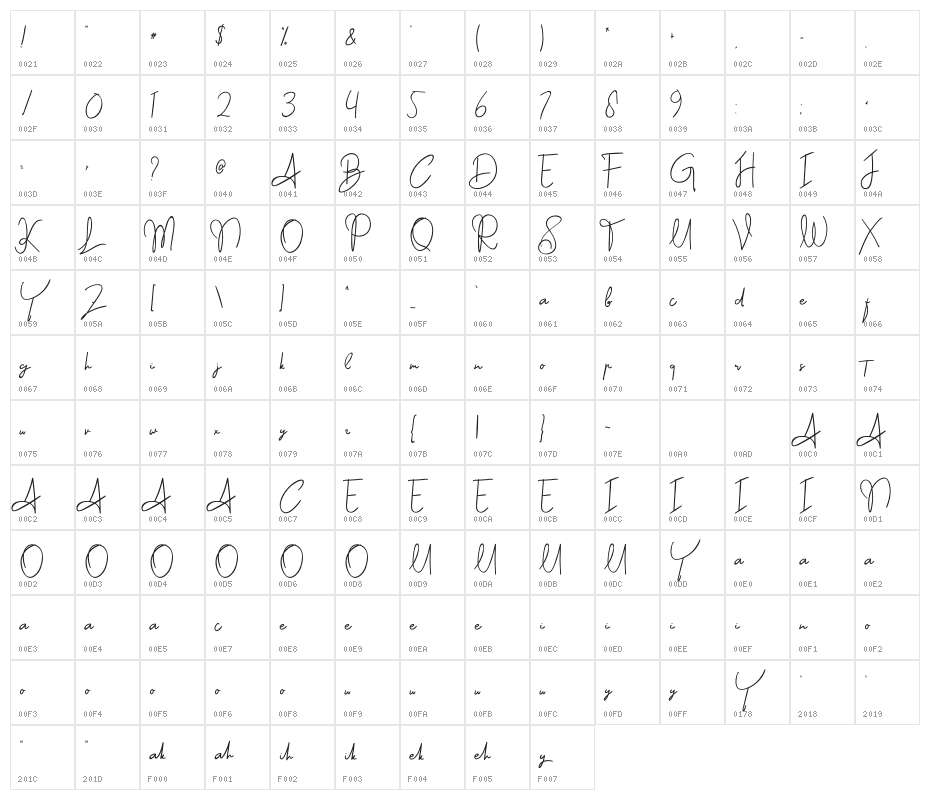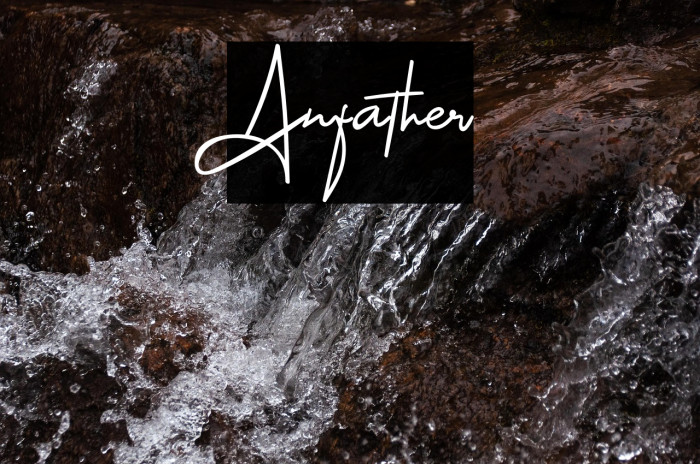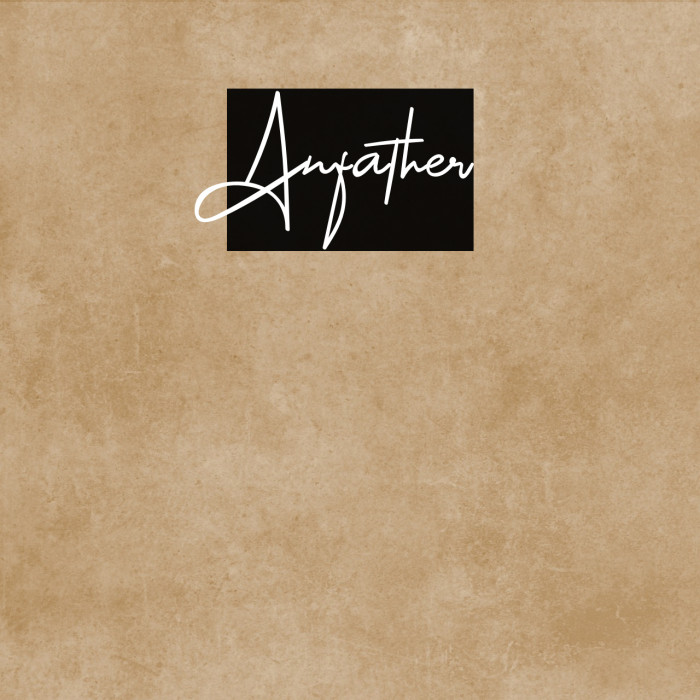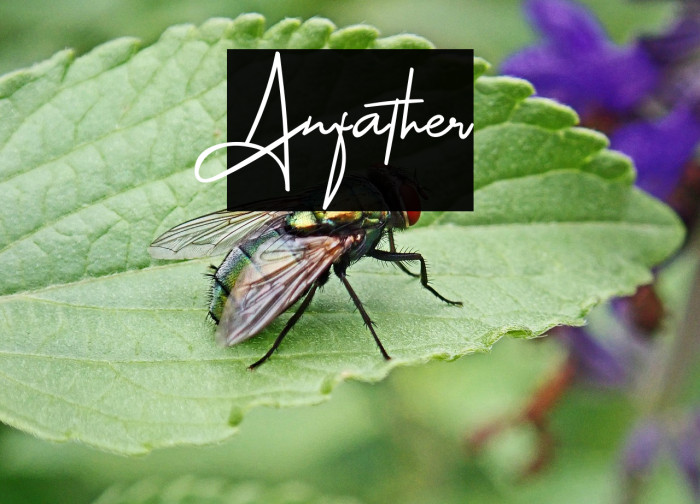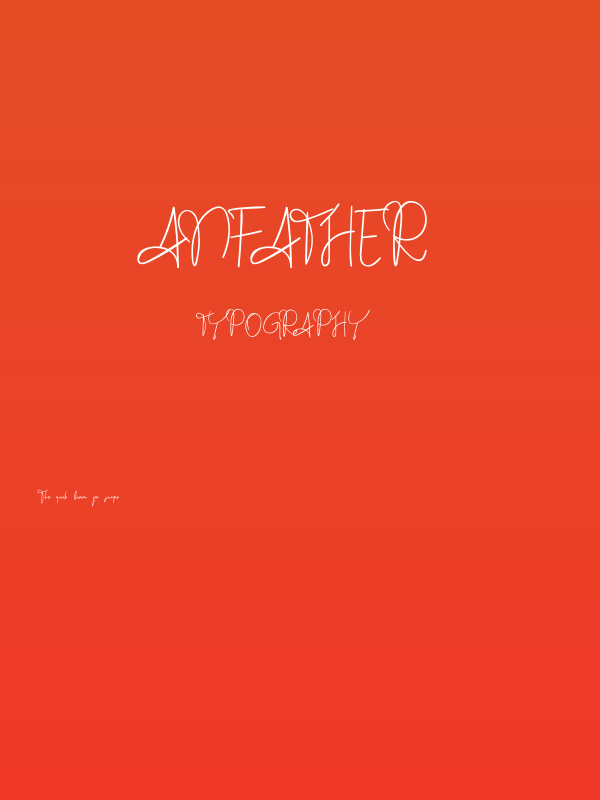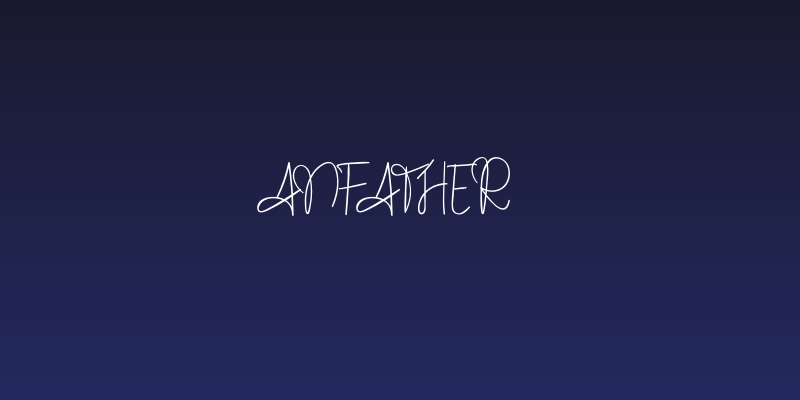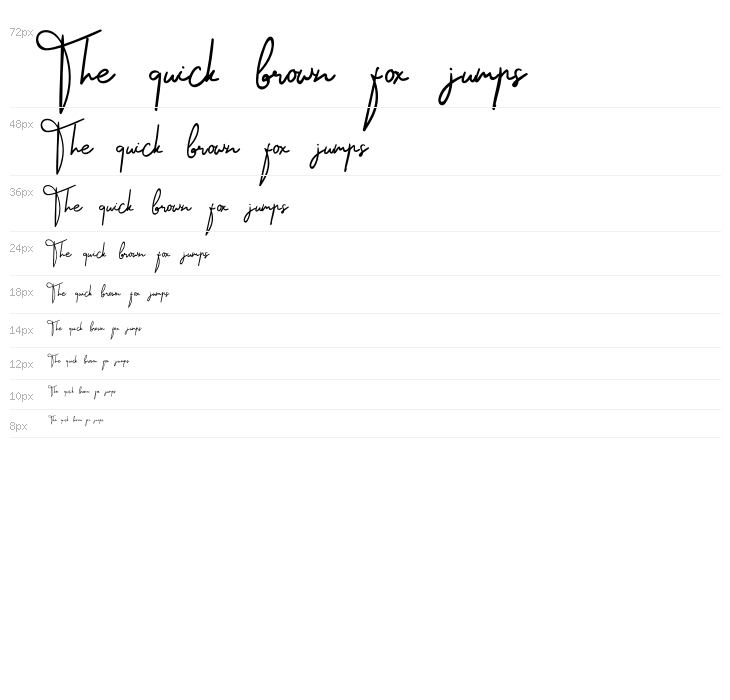
Anfather Font
Anfather Description
This font features a playful and artistic handwritten style, characterized by its fluid and interconnected strokes. The uppercase letters exhibit a whimsical flair with varying line thickness, giving them a dynamic and lively appearance. The lowercase letters maintain a consistent flow, enhancing readability while retaining the font's unique charm. Numbers and special characters are crafted with the same artistic touch, ensuring a cohesive look across all elements. The overall design is both elegant and casual, making it suitable for creative projects that require a personal and approachable feel.
| Proposed Projects | Ideal for greeting cards, invitations, personal branding, and creative social media graphics. |